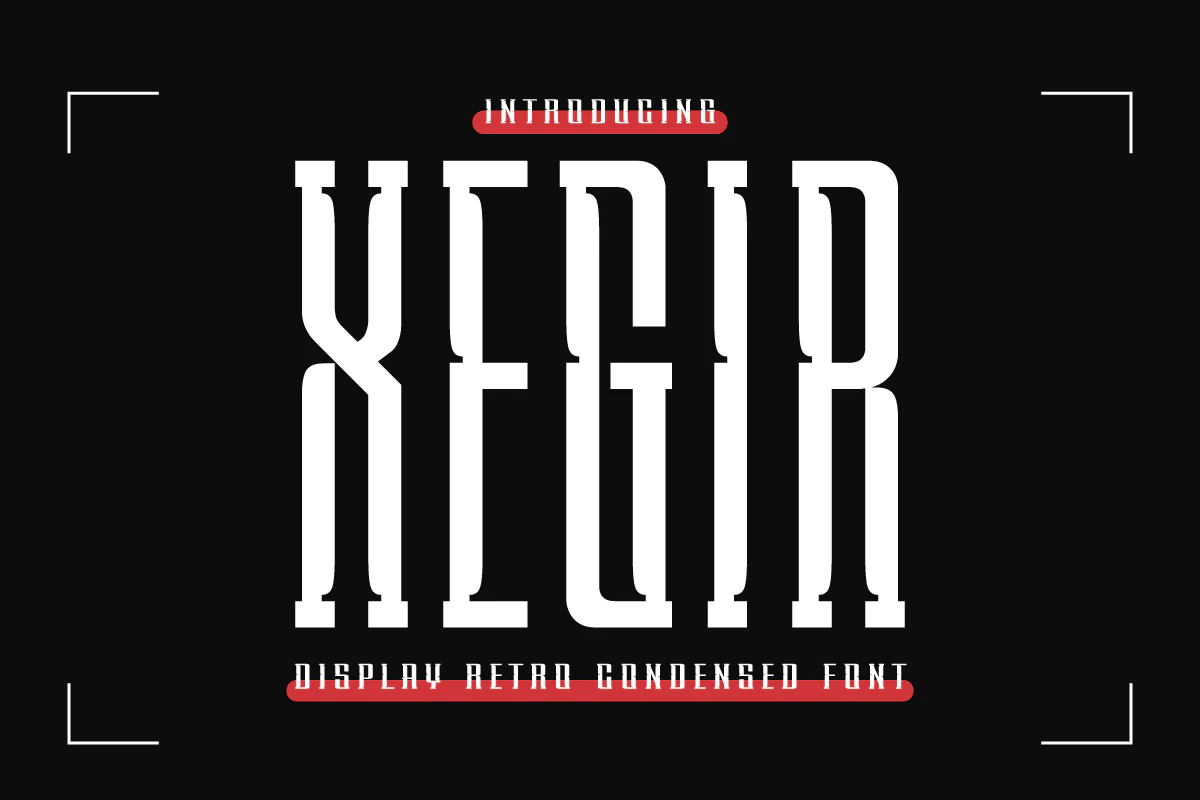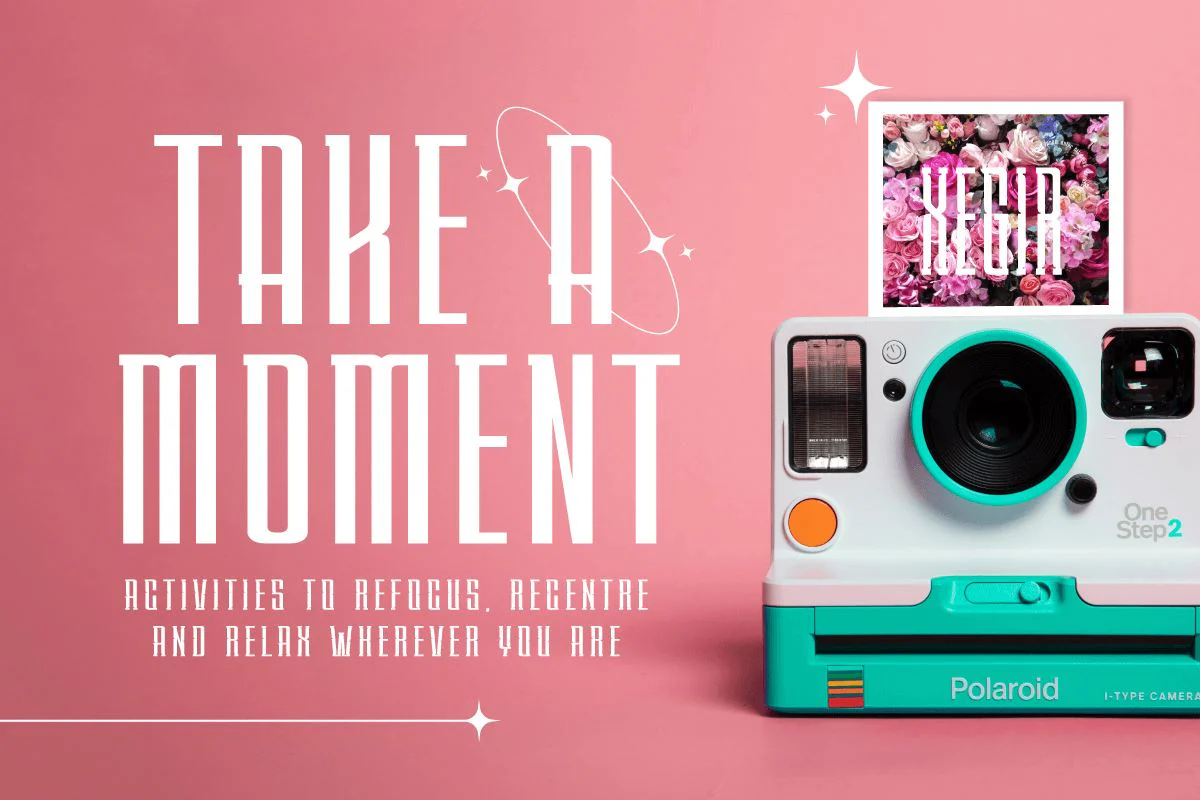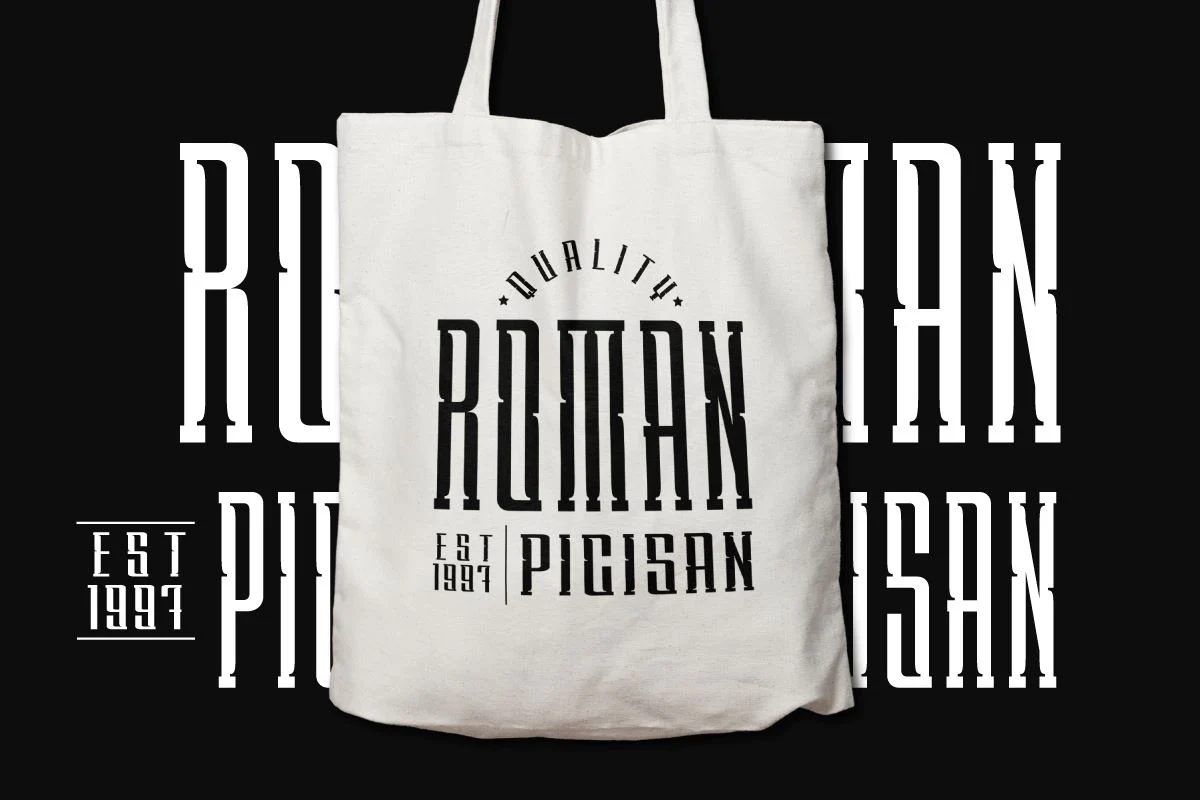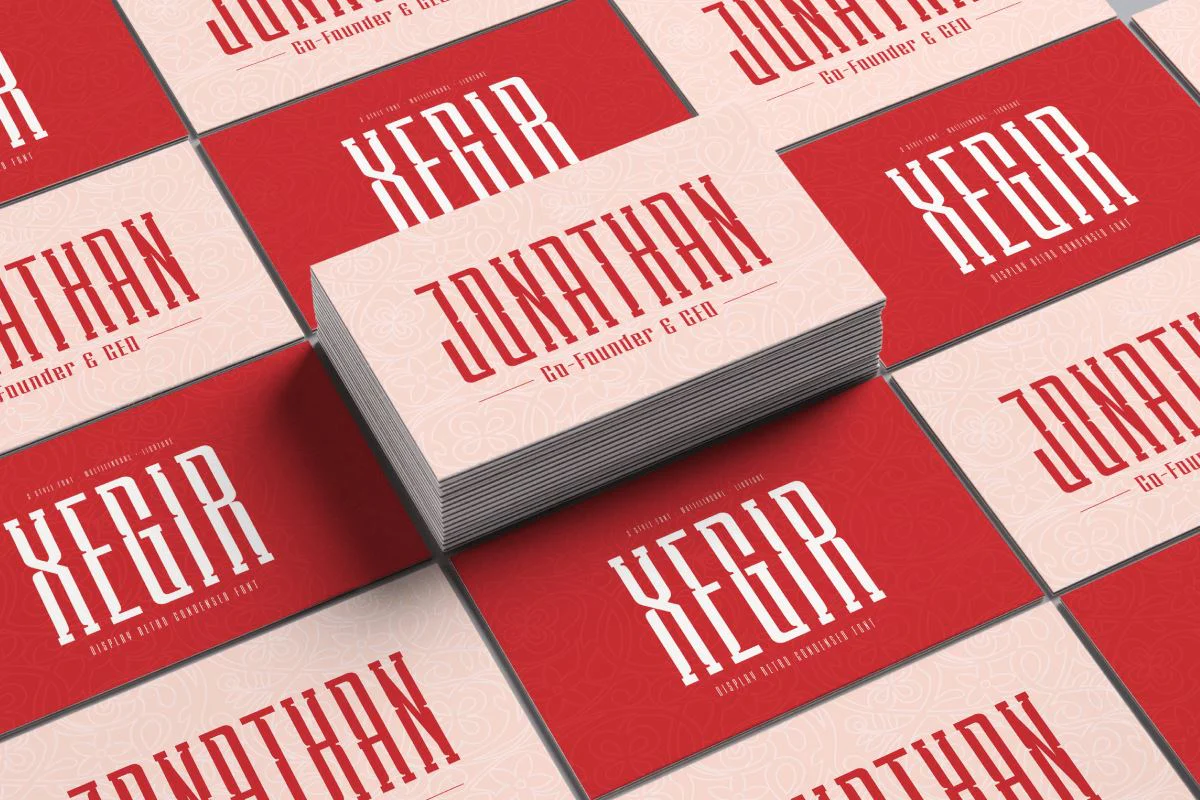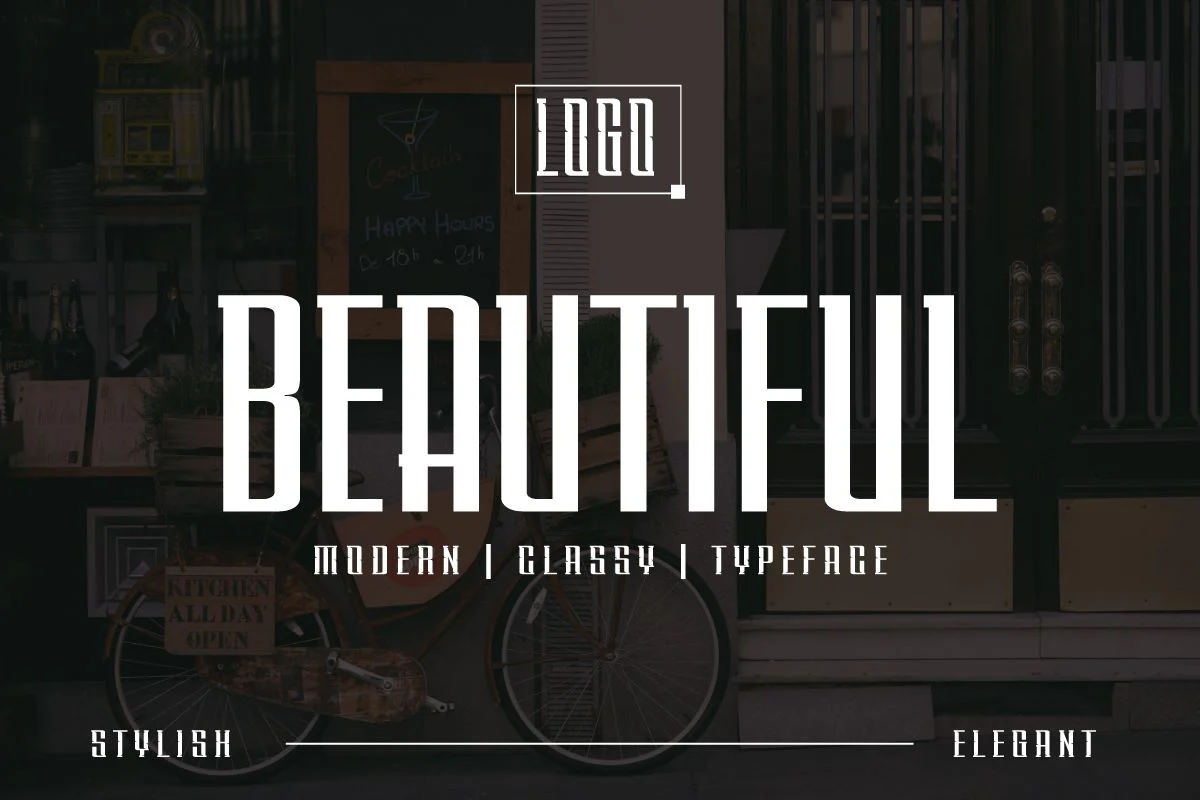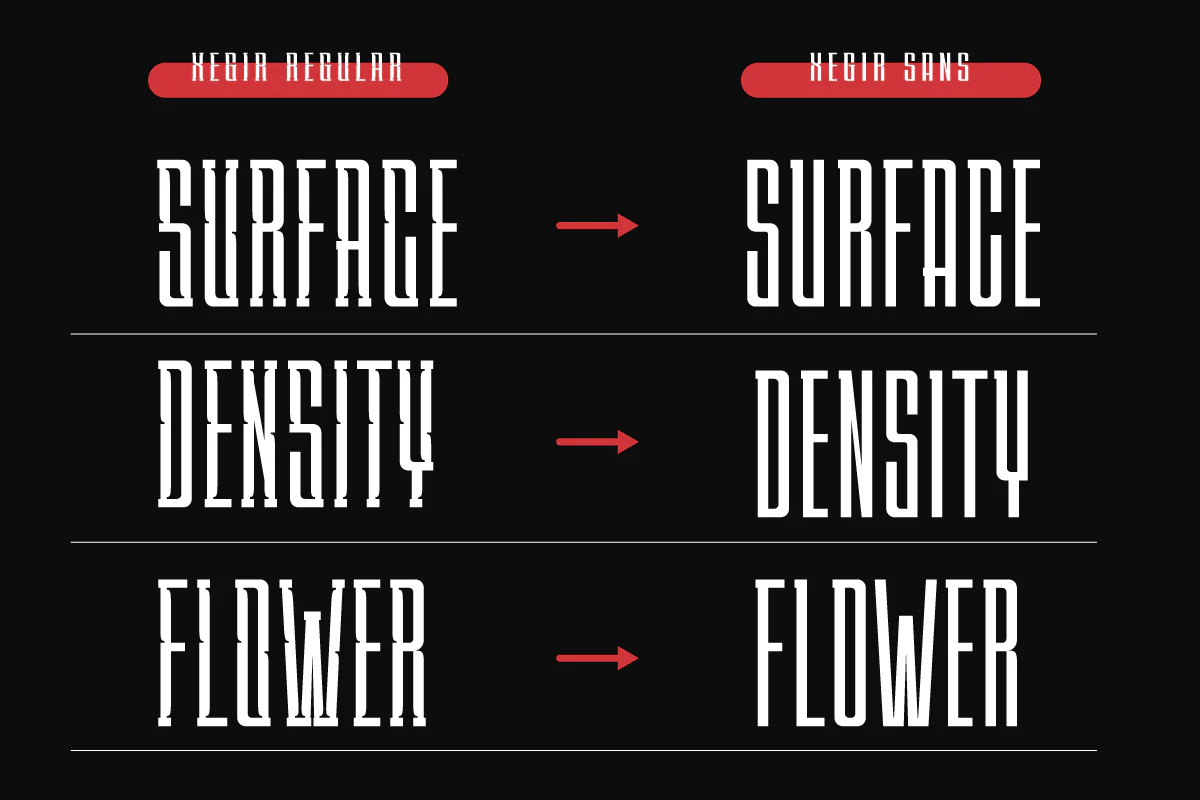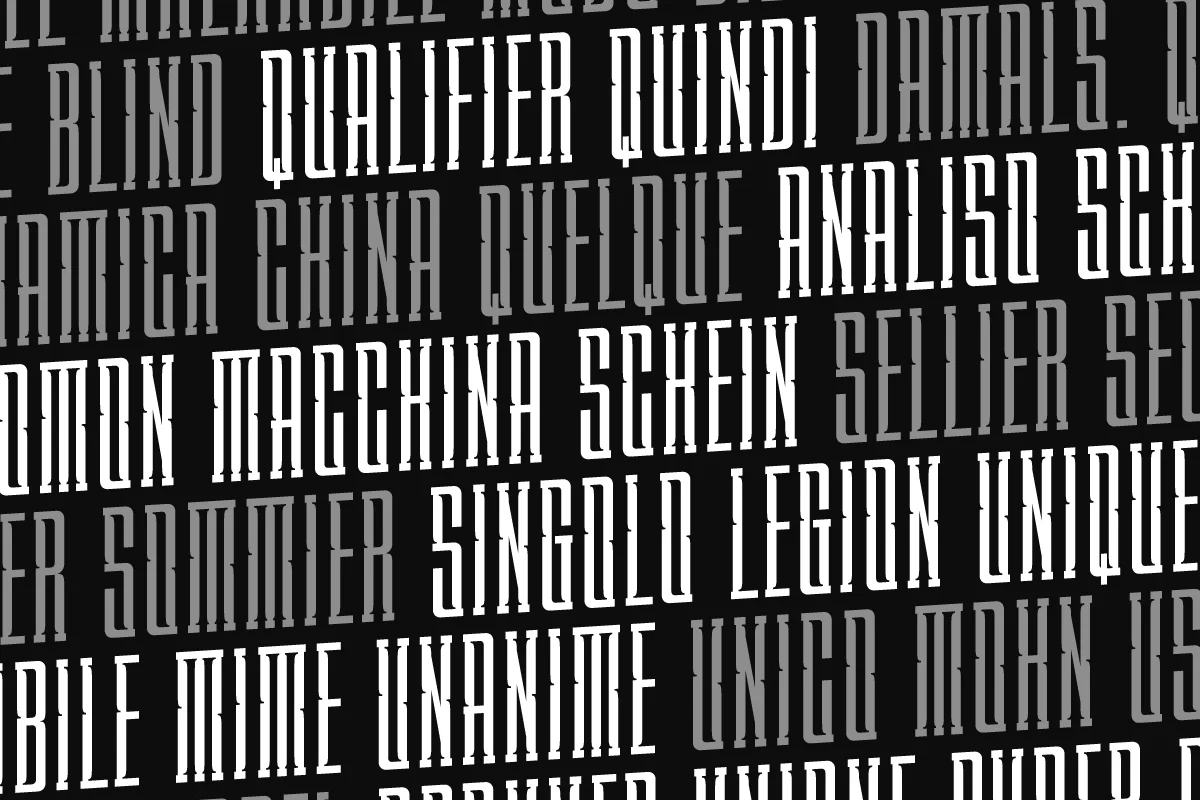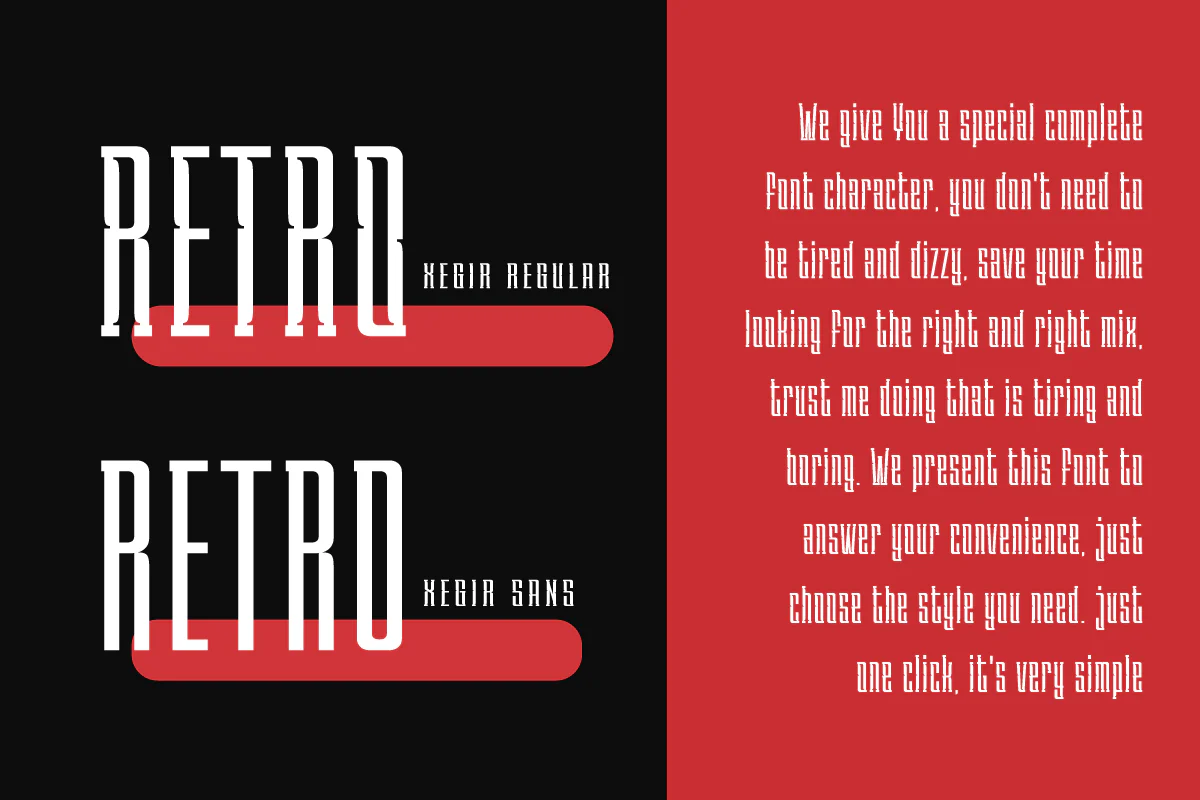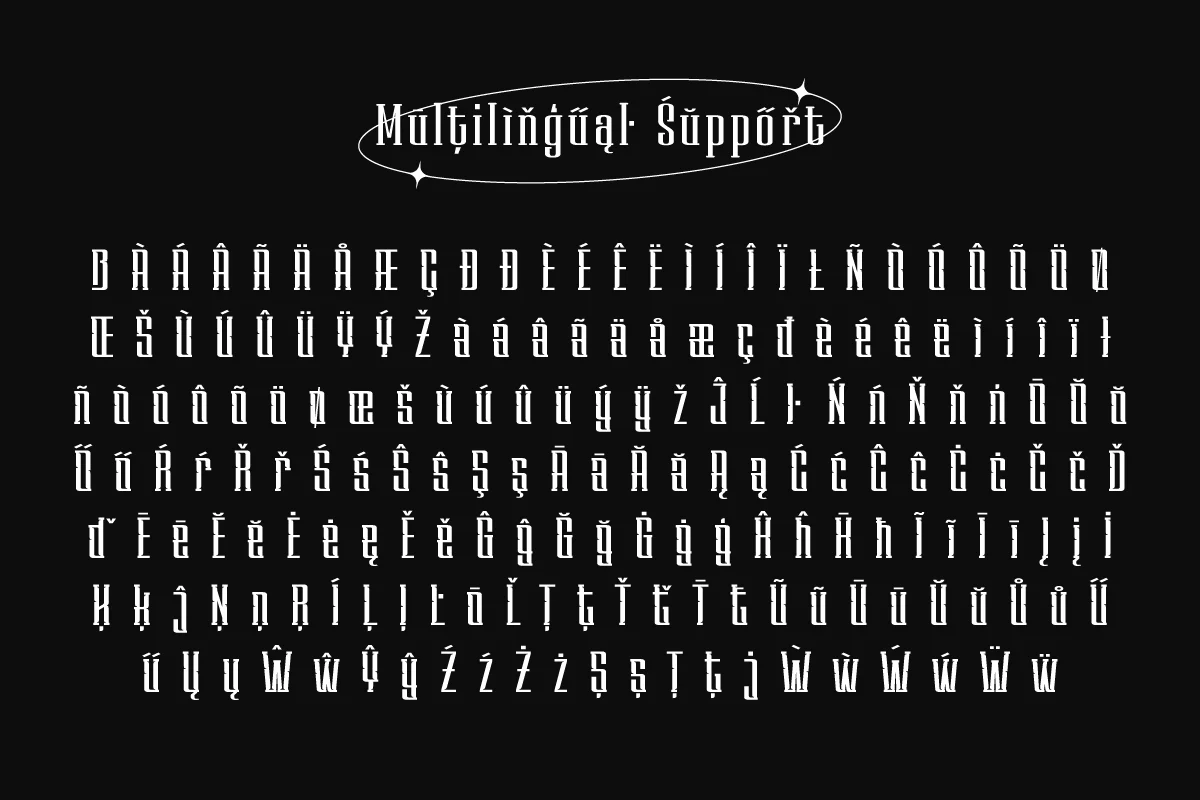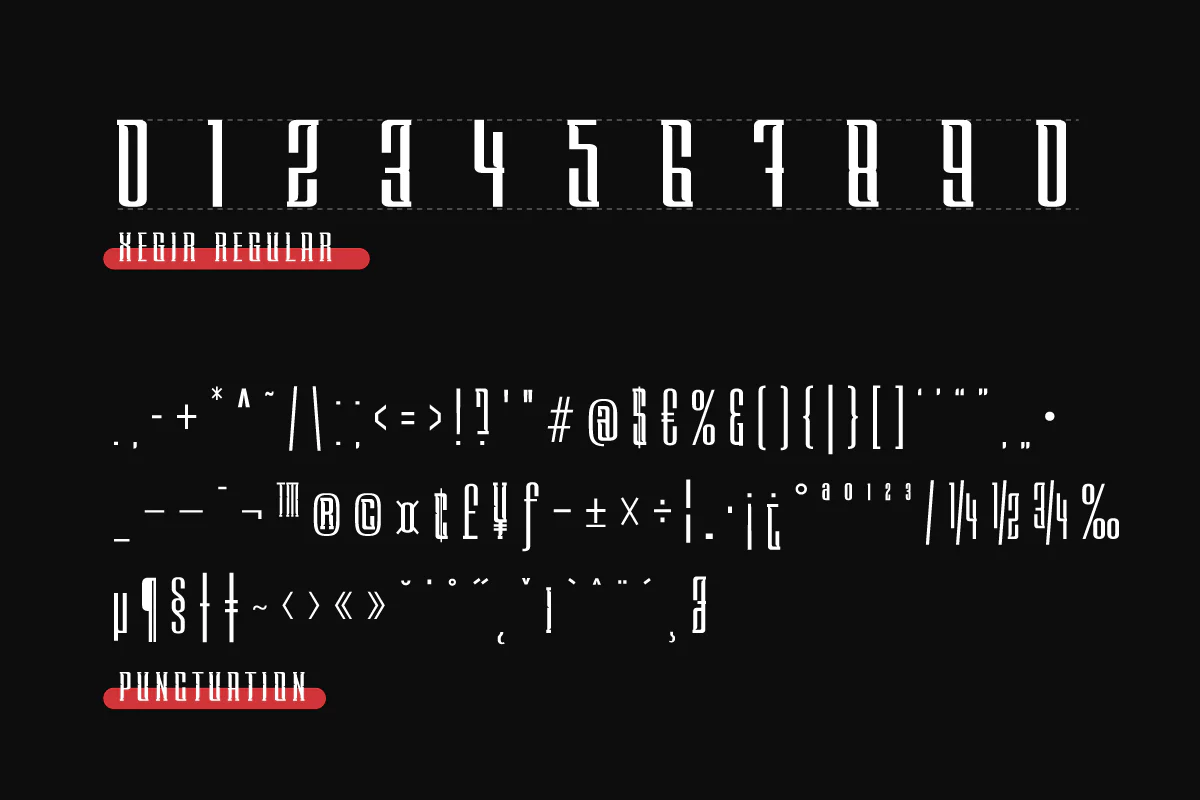
XEGIR | Retro Condensed Font
The Xegir Retro Condensed Display font is a strong solid display font with tall, dense shapes with a geometric appearance. comes with two styles slab and sans perfect for titles, typography, magazines, brochures, packaging, and many more for your design needs, making your designs more modern and professional